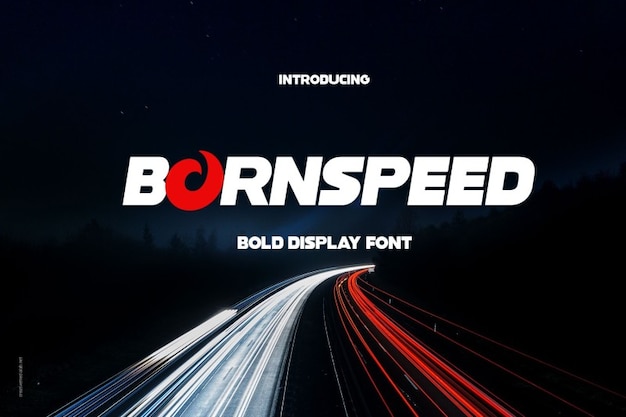
Bornspeed Font
a font that's all about the need for speed. Its bold, high-impact design makes it perfect for urban and racing-themed projects. Whether you're creating posters for a street race event or need a font that exudes energy and excitement, "Bornspeed" has got you covered. It's like a turbocharged typeface, revving up the style in your designs and leaving a trail of adrenaline in its wake. Get ready to take your projects from 0 to 60 in no time with this font!